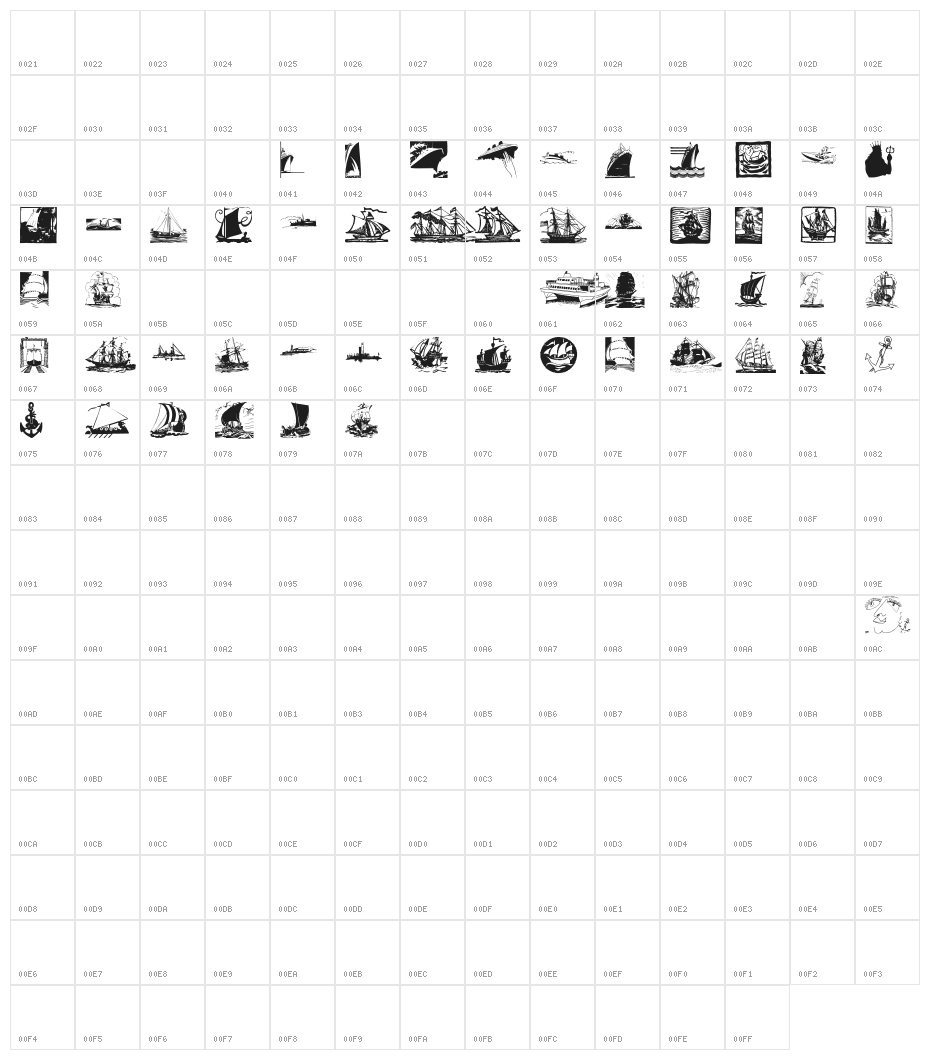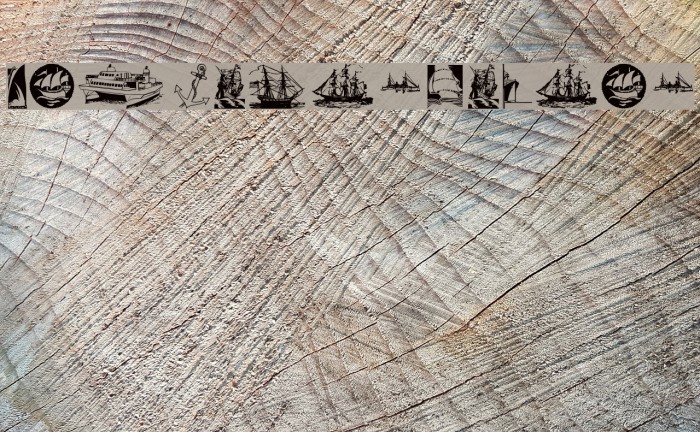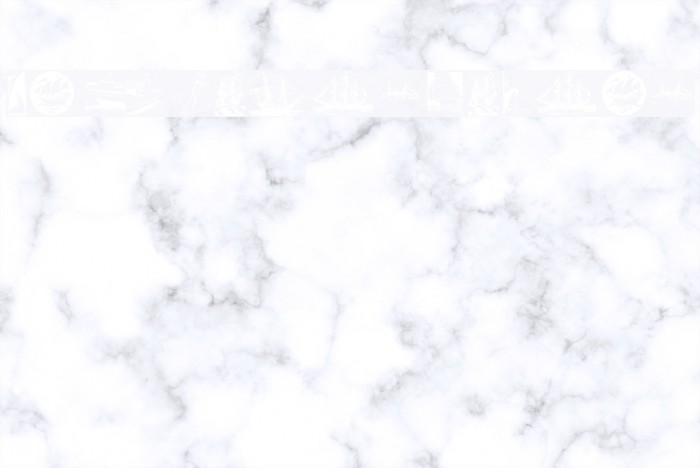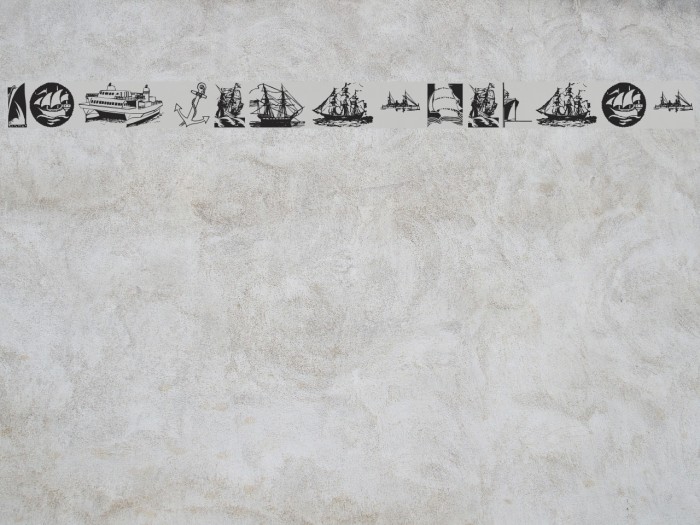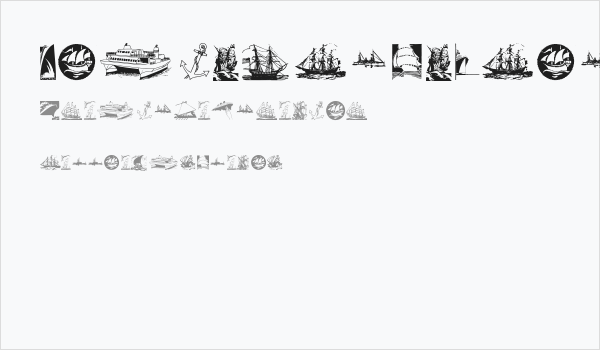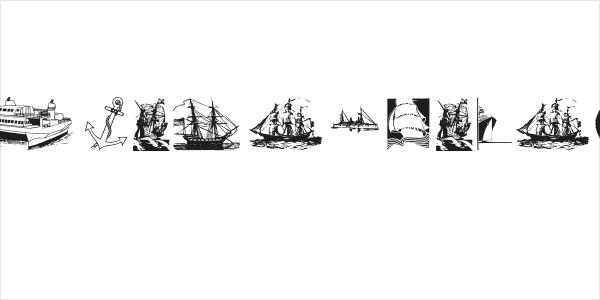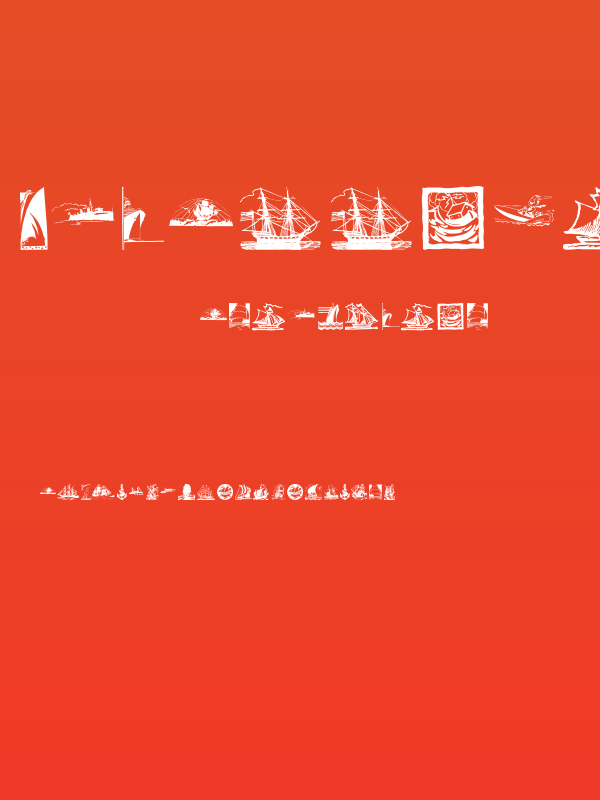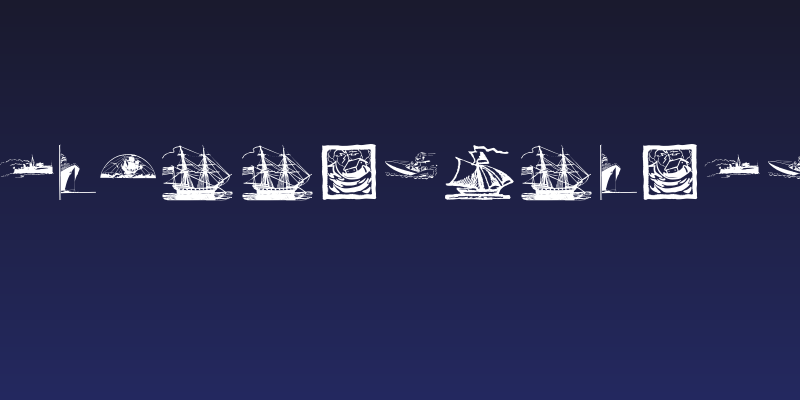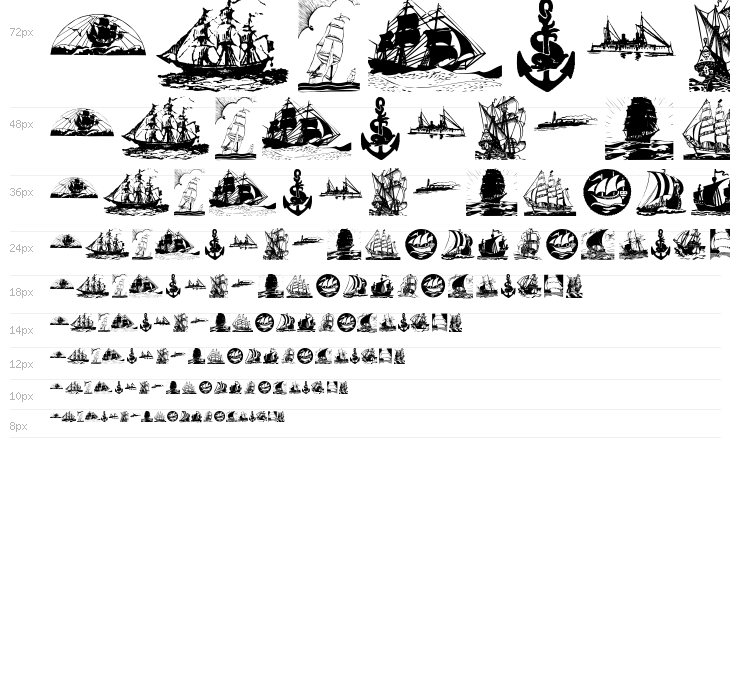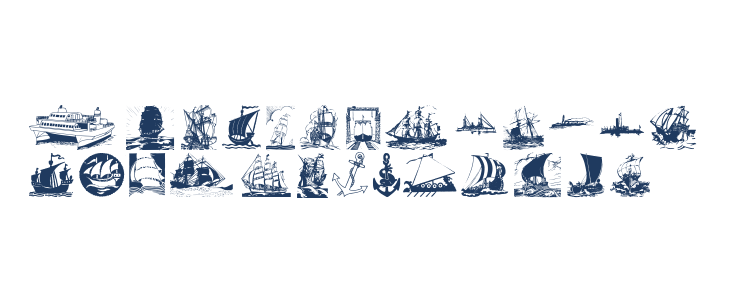
BoatsShipsAhoi Font
BoatsShipsAhoi Description
A decorative dingbat font featuring detailed black-and-white illustrations of various boats, ships, anchors, and nautical scenes, each character representing a unique maritime-themed graphic.
Overall StyleDecorative, Nautical, Thematic
Use CaseDecorative elements, Themed graphics, Logos, Posters
Proposed ProjectsPerfect for maritime-themed invitations, event posters, scrapbooking, educational materials, and decorative design projects.